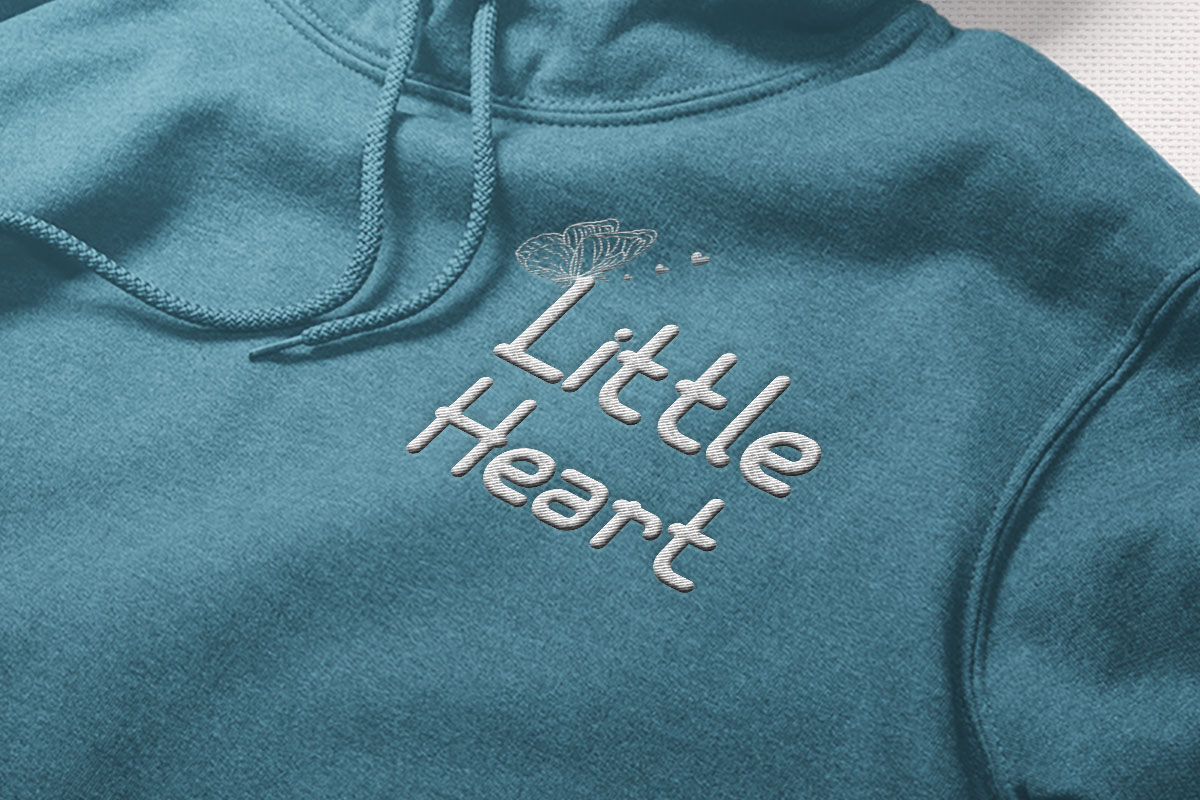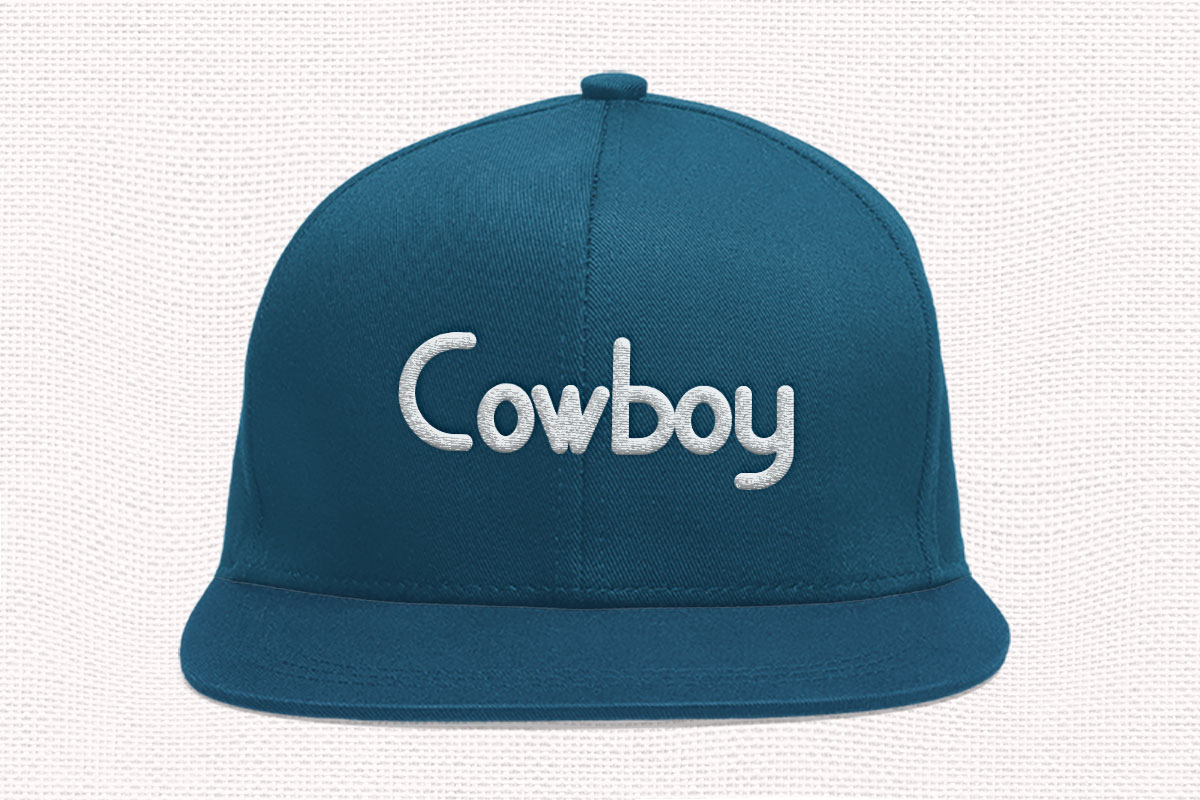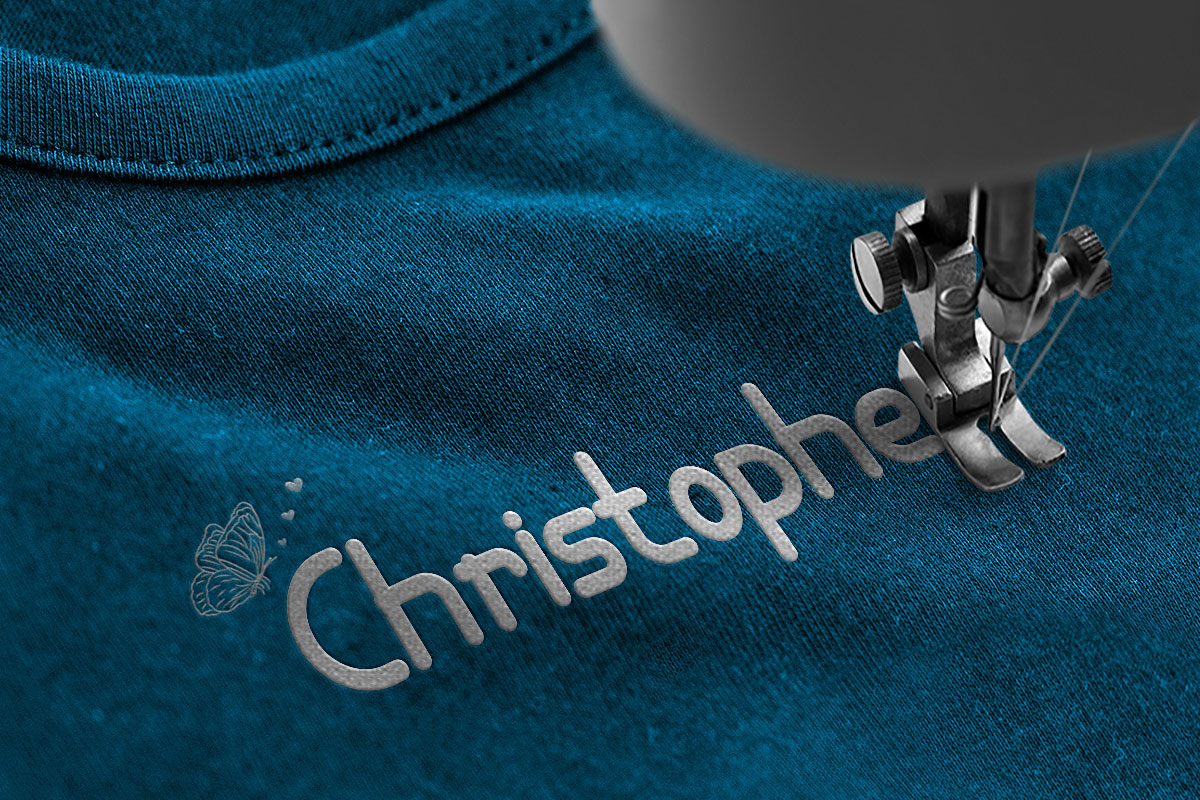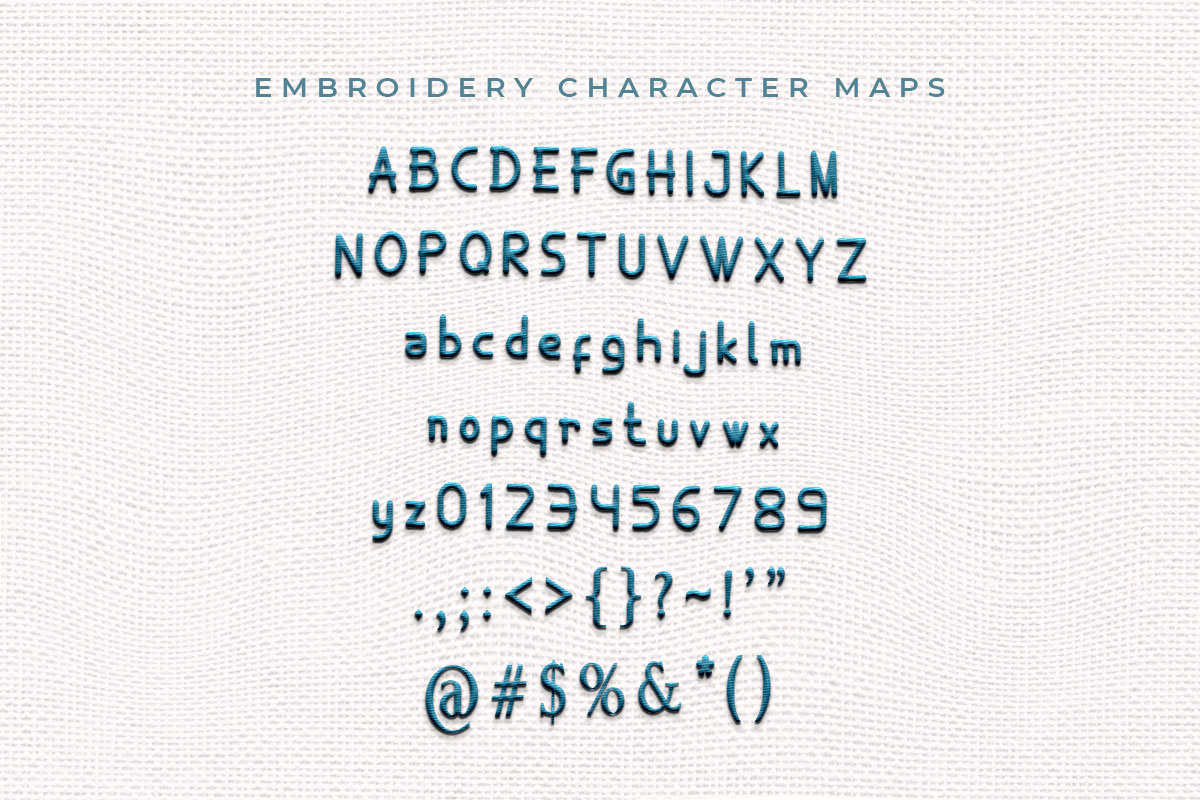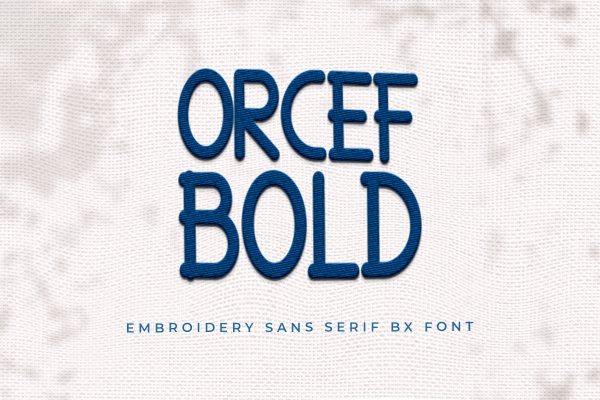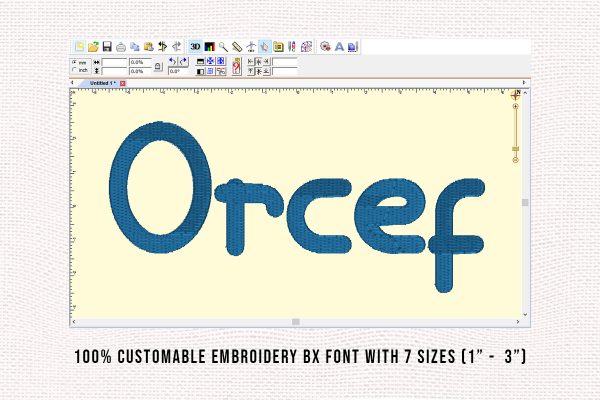
Talking about embroidered fonts will be very fun. Their appearance looks very warm and smooth making anyone who sees it will be amazed. This time, we present a new type of Embroidery font, called Orcef Bold Embroidery Font. We created this font for digital and print use. You can also choose different file sizes and kinds to use.
Orcef Bold Embroidery Font is made with the appearance of standing parallel to the shape without any breaks. The font is not decorated with any lines or strokes, so it looks clean. The curved body in this font is perfect and has the same line width. This characteristic makes Orcef Bold Embroidery Font display the impression of being modern and unique when viewed carefully and combined with appropriate objects.